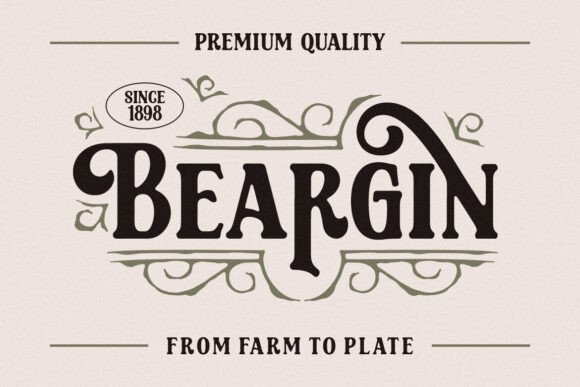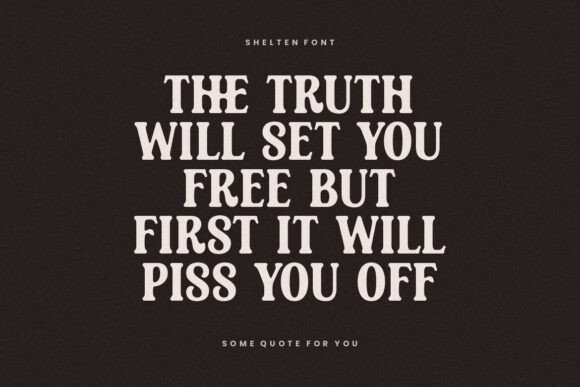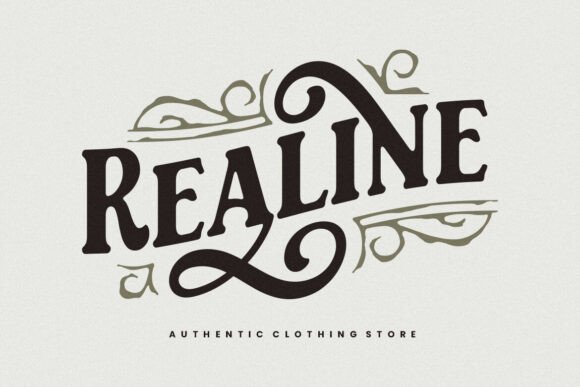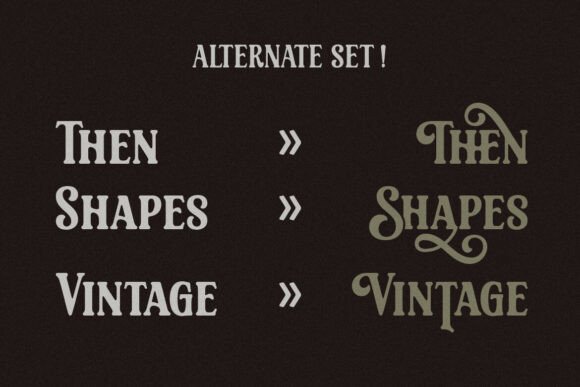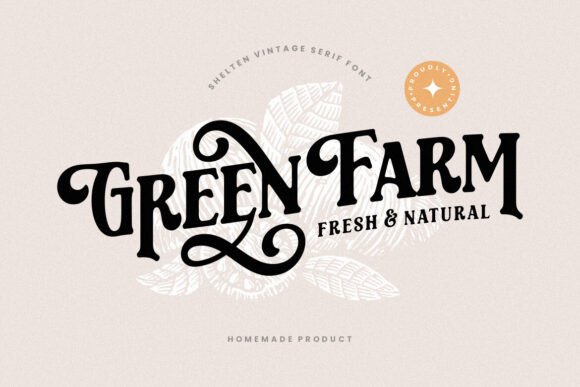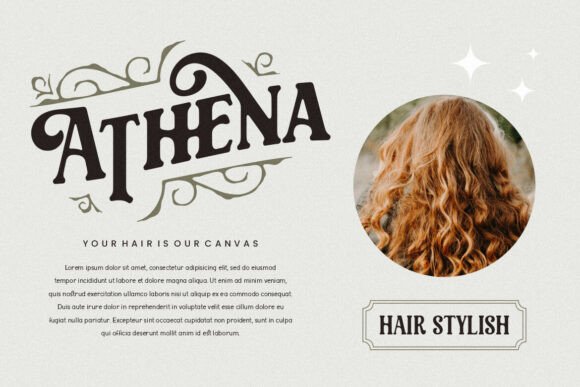
Introduction to Shelten Font
Have you ever been browsing through old photographs or antique stores, and suddenly, you’re struck by the beauty of a vintage sign or an old label? The way the letters seem to dance across the page, with their unique flair and character? That’s exactly the kind of charm that the Shelten Font brings to your designs.
As a designer, you’re constantly on the lookout for that special something that sets your project apart from the rest. And with Shelten Font, you’ve got it. This vintage-style typeface is the perfect addition to any creative project, adding a touch of nostalgia and timelessness to even the most modern designs.
Whether you’re working on a logo, packaging, or branding, Shelten Font is an invaluable resource that will take your designs to the next level. With its high-quality formats and unique characters, you’ll be able to create truly stunning visuals that will leave a lasting impression. And the best part? It’s available for free download, making it a must-have for any designer looking to elevate their work.
Key Features of Shelten Font
• High-quality, unique design for creative projects, offering a distinctive look and feel.
• Perfect for designers looking for a unique and high-quality font to elevate their creative projects.
Honest Review: Shelten Font
As a designer, I’m always on the lookout for high-quality fonts to elevate my creative projects. The Shelten Font is a great addition to my design resource library, offering a unique and versatile look that can be used in a variety of contexts.
• ✨ The Shelten Font has a high level of detail, making it perfect for projects where you need a font that will stand out.
• ✨ The font is highly customizable, allowing you to adjust the size, color, and style to fit your specific design needs.
• ⚠️ The font may not be suitable for use on a transparent background, as the details can become lost.
• ⚠️ The font may not be the best choice for very small text, as the details can become difficult to read.
Overall, I’m very impressed with the Shelten Font. It’s a high-quality, free download that offers a unique look and feel that can elevate any creative project. While it may have some limitations, it’s definitely a great addition to any designer’s toolkit.
Tips for Getting the Most Out of Shelten Font
Experiment with different font sizes and colors to create a unique design. Use the font with a high-quality image or graphic to add depth and visual interest. Consider using the font with a transparent background to create a modern and sleek look.
Shelten Font is perfect for creative projects such as graphic design, digital art, and typography. It’s also great for presentations, documents, and social media graphics. With its high-quality design and transparent background option, Shelten Font is a valuable design resource for any creative project.